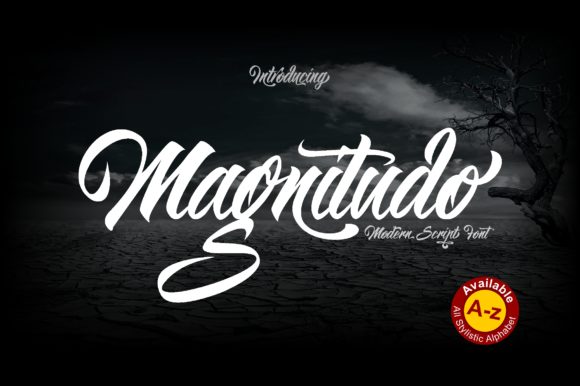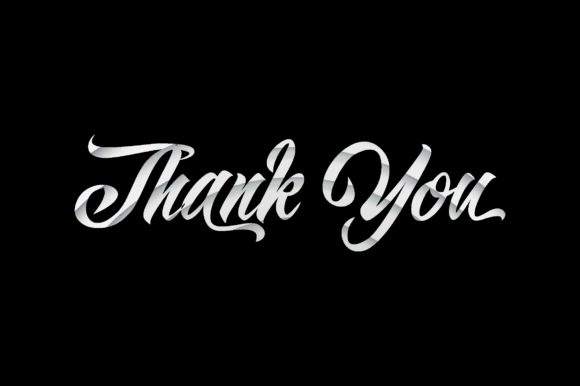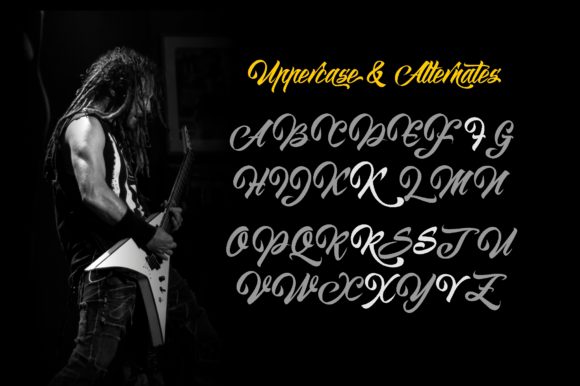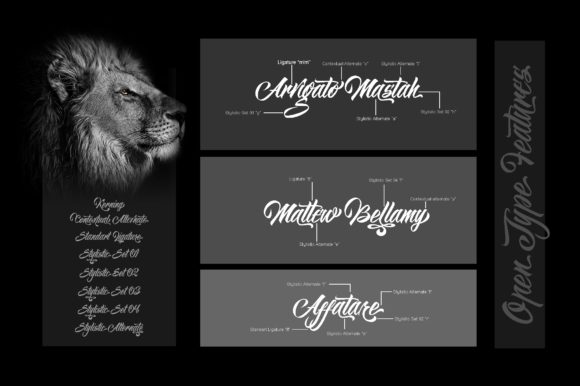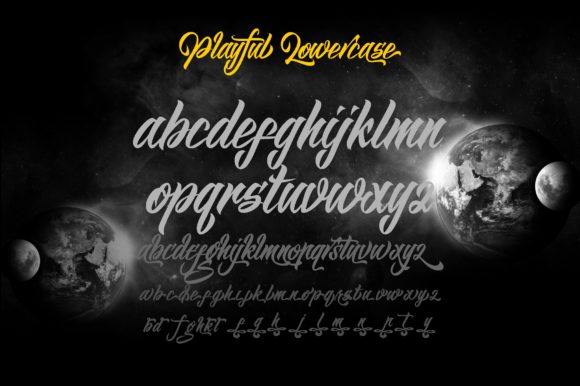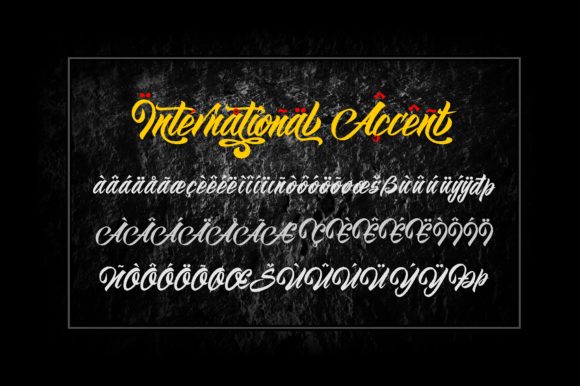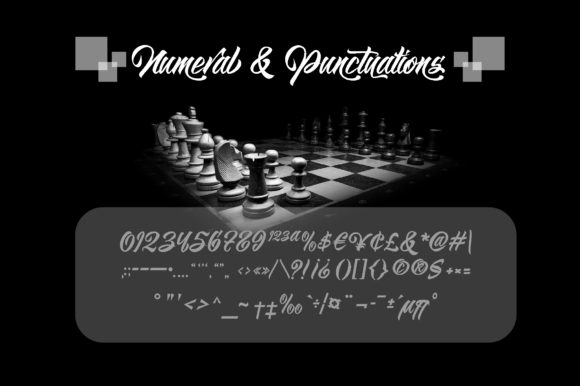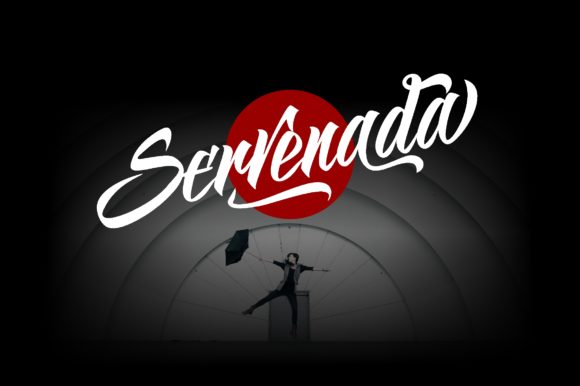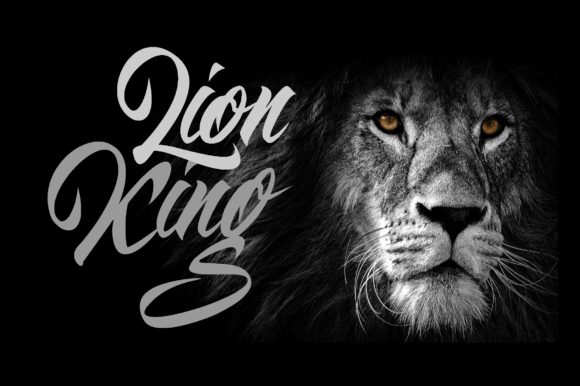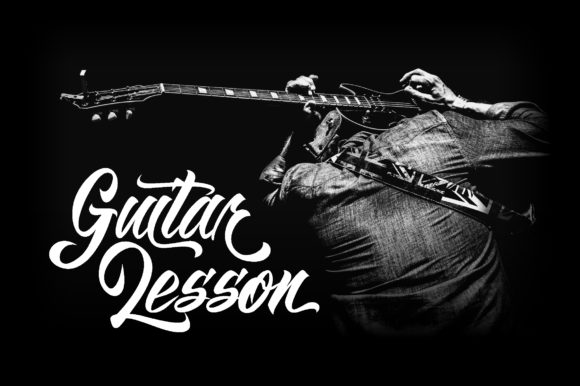
Magnitudo Font
About Magnitudo Font
Magnitudo results out of a stunning pairing of a brush pen and pencil that makes it look incredibly endearing and authentic. Use this gorgeous and unique handwritten font to bring any DIY project to life!